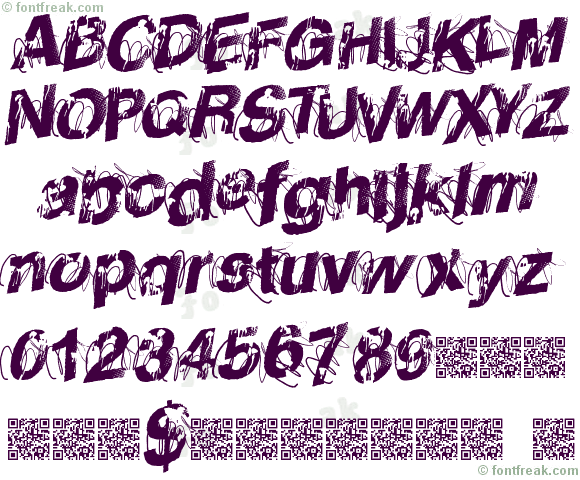
UrbanPoster
About UrbanPoster
UrbanPoster by XEROGRAPHER FONTS is a striking display font that captures the essence of urban art and street culture. As a decorative typeface, UrbanPoster features a unique blend of rough edges and artistic flair, making it ideal for projects that require a bold visual statement. The font showcases varying stroke weights and a dynamic contrast that evokes a sense of movement and energy. Its spacing is intentionally loose, allowing each letterform to breathe, while the decorative elements add a playful touch that enhances its overall aesthetic.
This font is particularly well-suited for a variety of creative applications. It excels in creating eye-catching movie posters that attract attention and convey a sense of excitement. Additionally, UrbanPoster can elevate the design of event flyers, making them more memorable and visually striking. Small business owners will find this font useful for branding materials such as restaurant menus or promotional graphics, where a contemporary and urban feel is desired. For graphic designers and content creators, UrbanPoster offers a versatile tool to bring creative visions to life, infusing projects with an energetic vibe.
The target audience for UrbanPoster includes graphic designers, small business owners, and content creators who seek to make a lasting impression through their work. Whether you’re designing for a local event or a trendy brand, this font provides the unique character that stands out in a crowded marketplace.